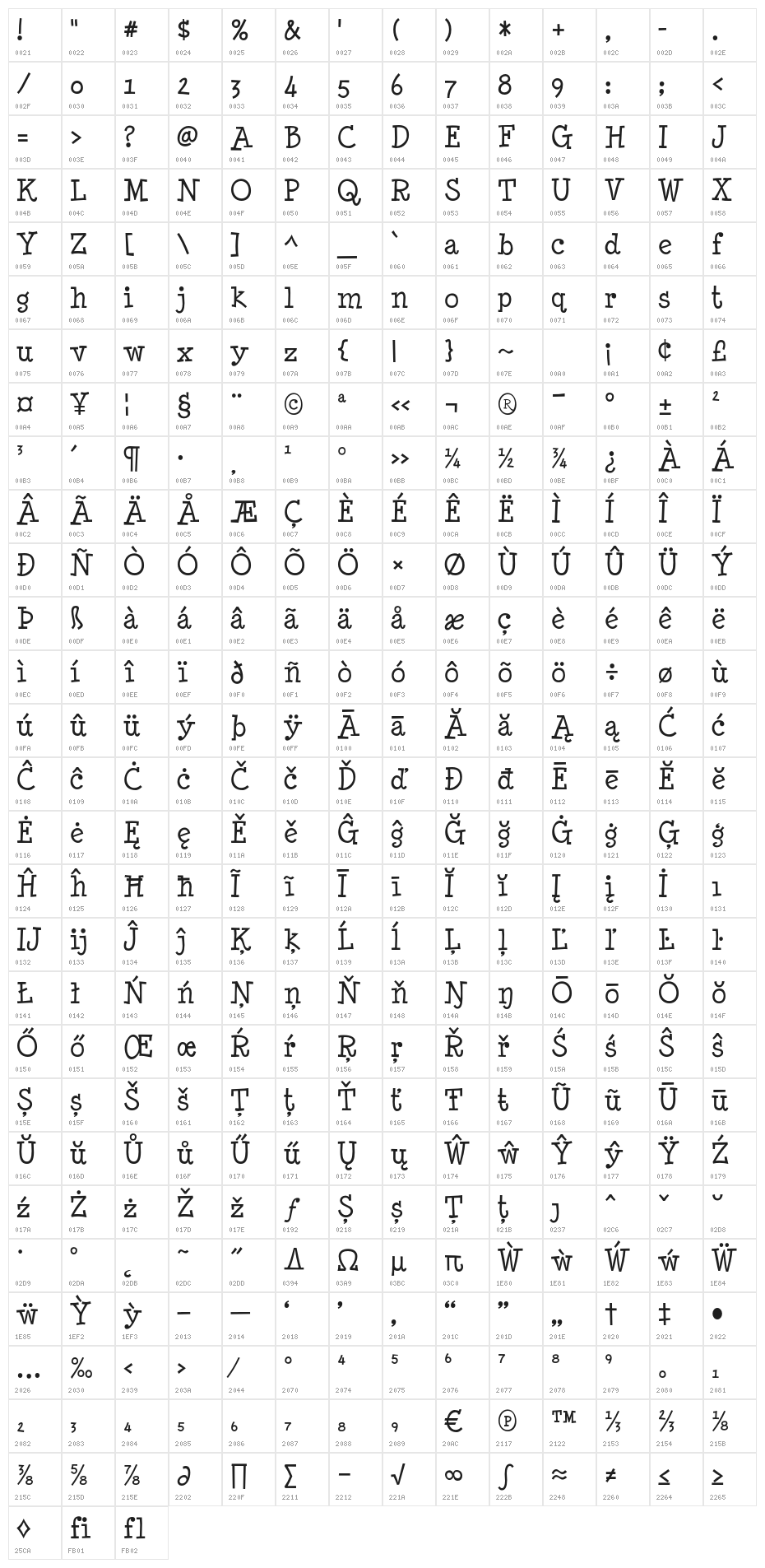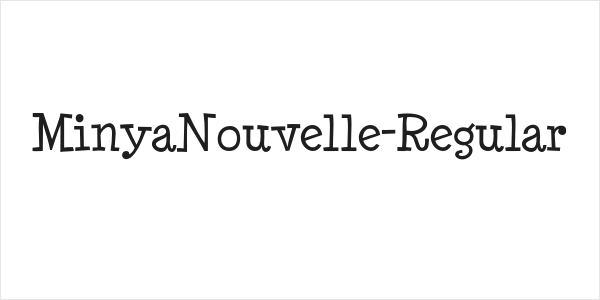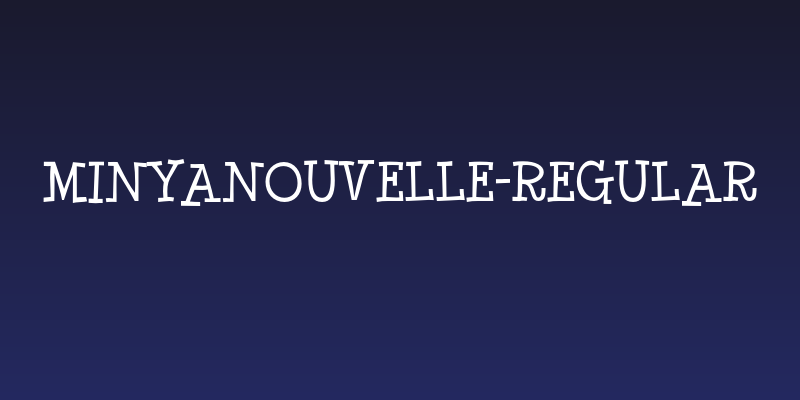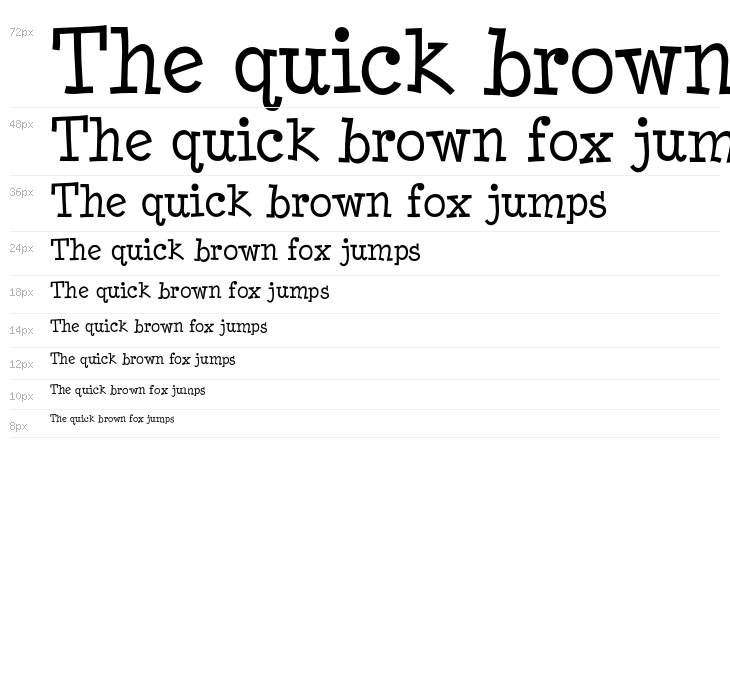
MinyaNouvelle-Regular Font
MinyaNouvelle-Regular Description
This font features a playful and whimsical design with a unique blend of classic and modern elements. The characters have a slightly irregular shape, giving them a hand-drawn appearance. The uppercase letters are bold and prominent, while the lowercase letters maintain a consistent style with a touch of flair. The numbers are clear and legible, with a slight tilt that adds to the overall charm. Special characters are creatively designed, complementing the font's quirky aesthetic. This font is perfect for projects that require a fun and engaging look.
| Proposed Projects | Ideal for children's books, playful branding, greeting cards, and creative posters. |